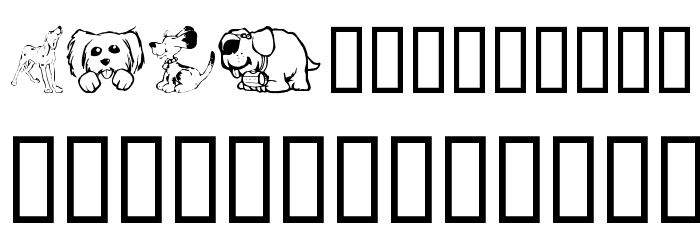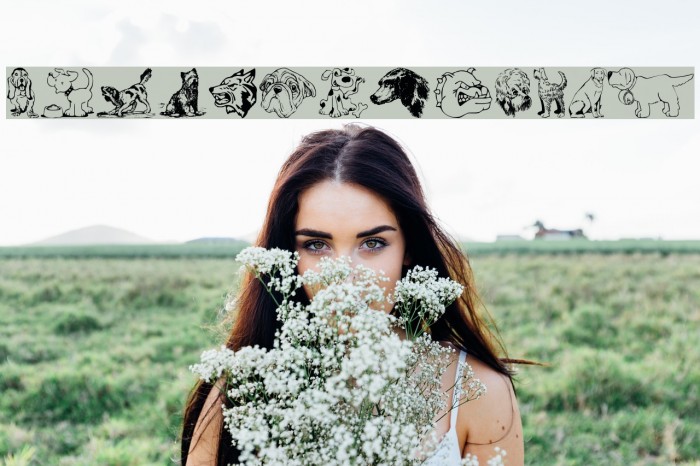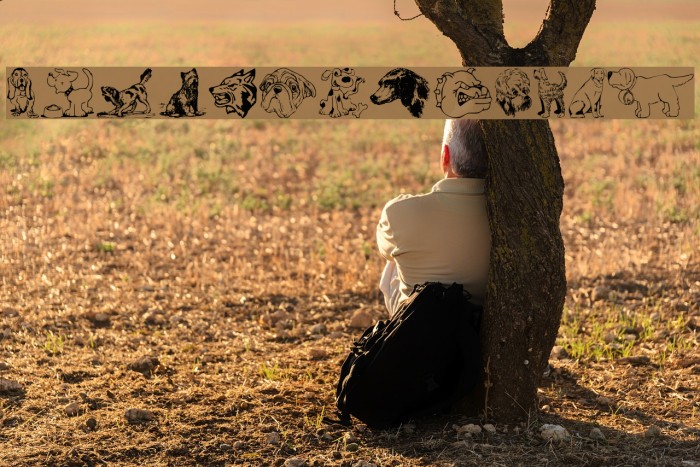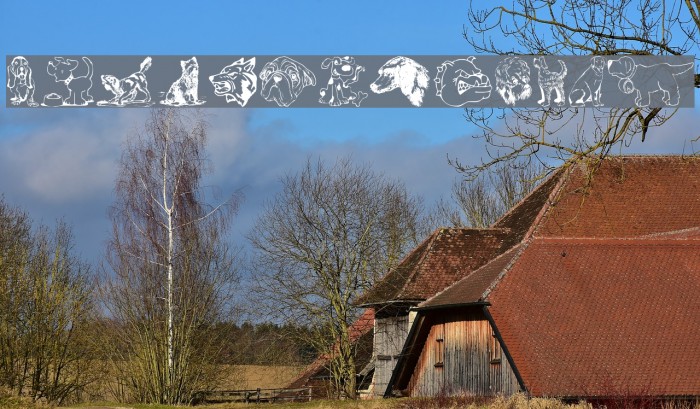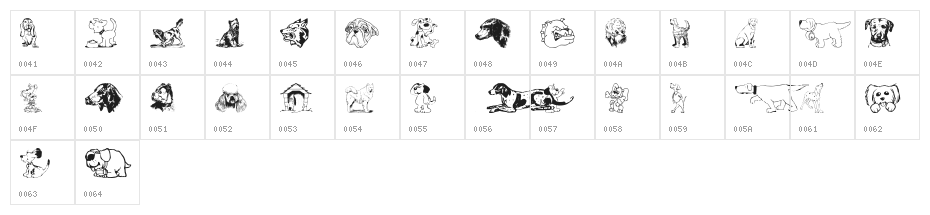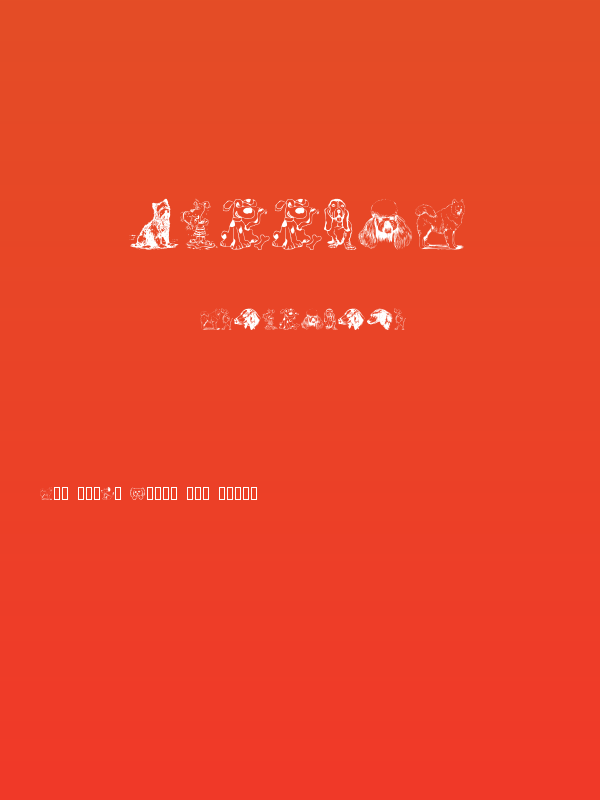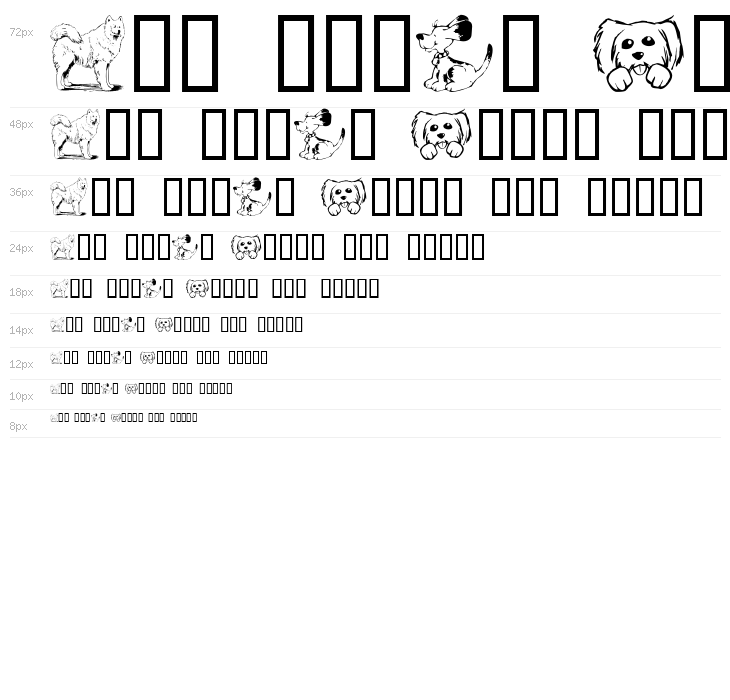
DoggArt Font
This decorative font features a series of playful and detailed dog illustrations, each representing a different character. The designs are intricate, capturing various breeds and expressions, making it a unique choice for projects that require a whimsical and friendly touch. The font does not include traditional letterforms but instead uses dog images to convey each character. This makes it ideal for creative projects where a literal representation of letters is not necessary. The illustrations are well-detailed, with a mix of realistic and cartoonish styles, adding to the charm and versatility of the font.
A decorative font with playful dog illustrations replacing traditional characters.
- Proposed Projects: Ideal for children's books, pet-related branding, playful posters, and creative invitations.
- Overall Style: Whimsical
- Use Case: Logos, Decorative headings, Creative projects